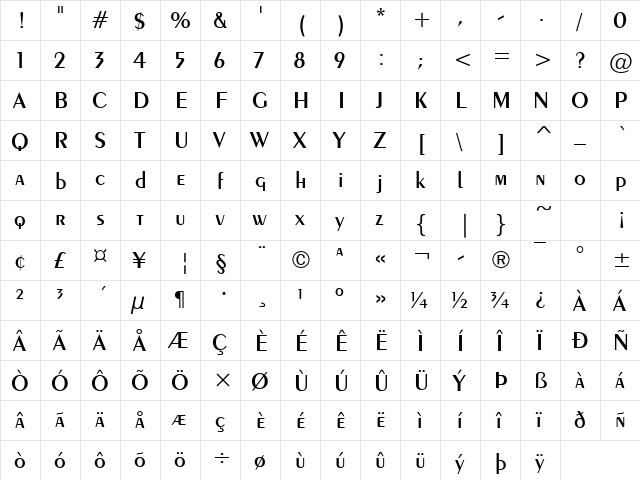
Exotica Regular
Design Context for Exotica Typeface
Exotica takes a measured approach to typography — its balanced proportions and neutral character make it a reliable workhorse for both digital and print work.
Pro Tip: Pair Exotica with a font of contrasting weight or personality to build a more expressive typographic hierarchy.